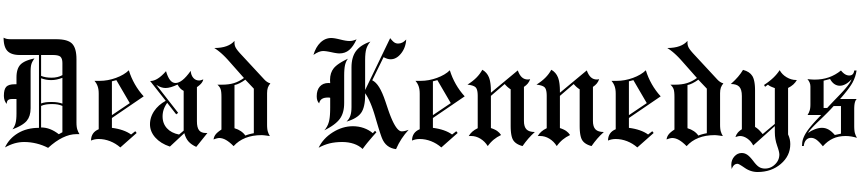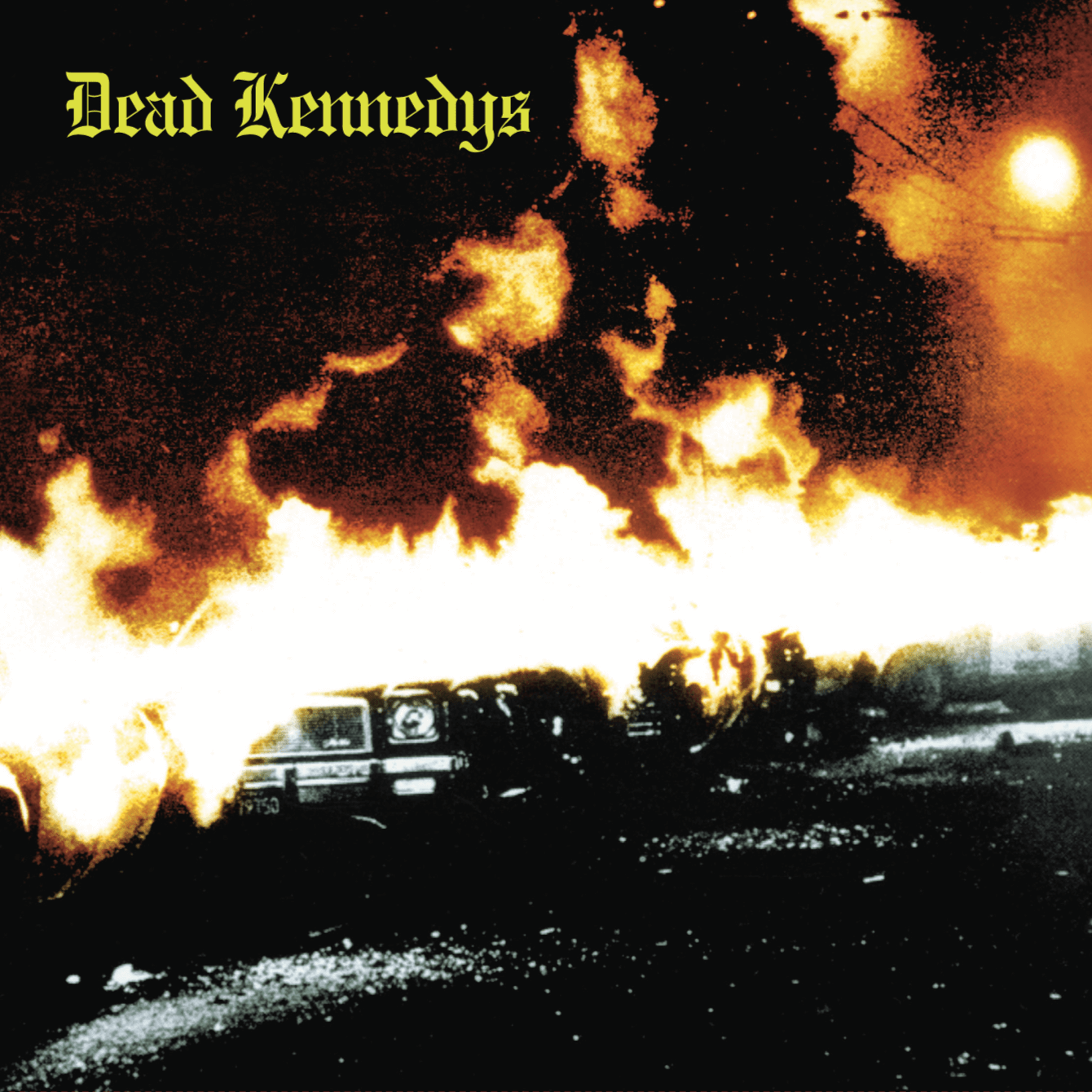
Dead Kennedys Font
The font utilized on the cover art bears a strong resemblance to Morris Fuller Benton's Engravers Old English. CastCraft's Engravers Old English is another cost free alternative for Benton's version, which is available for download here at FontGet.